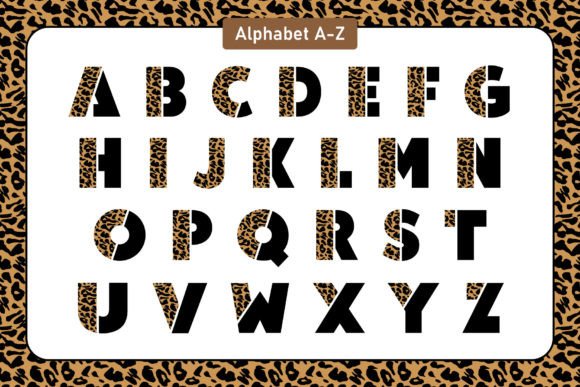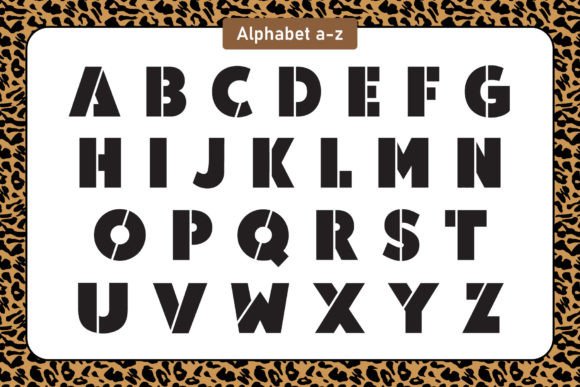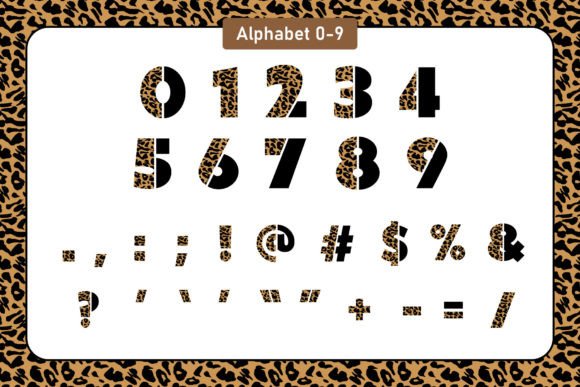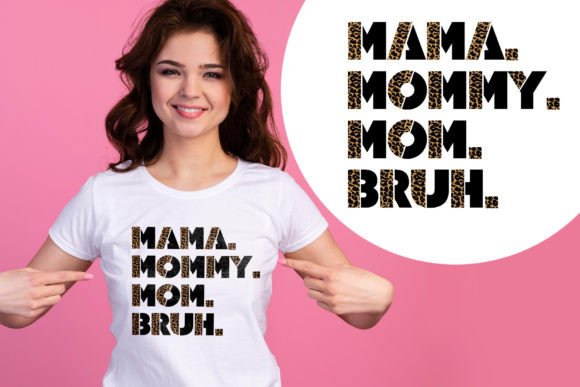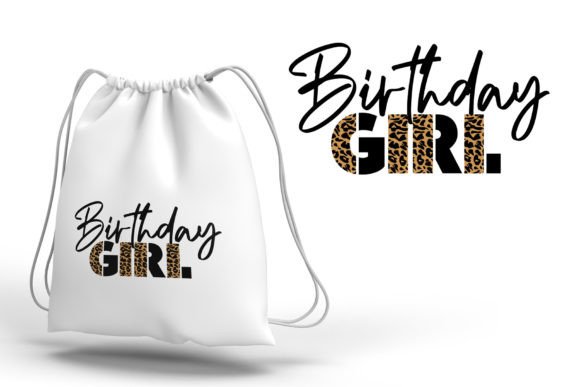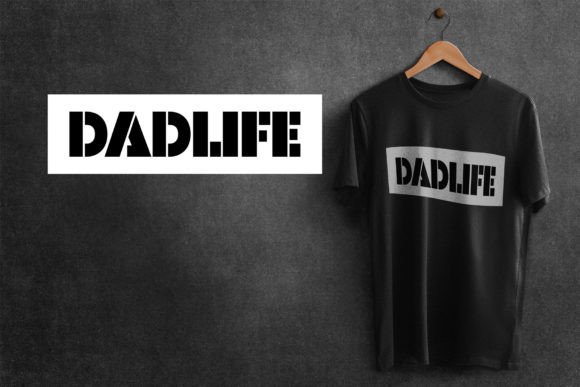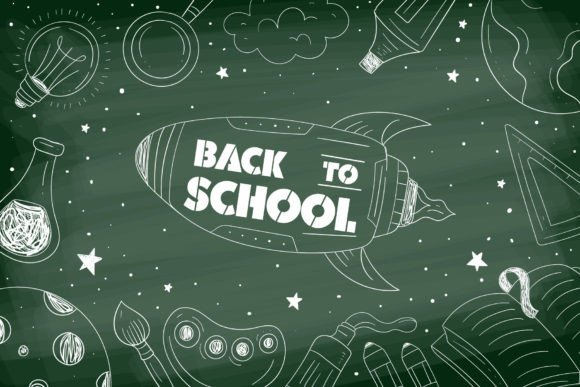
Half Cheetah Font
Introducing Half Cheetah, a vibrant and playful color font that brings a unique and energetic touch to your designs. With its captivating style, Half Cheetah is the perfect choice for a variety of creative projects, ranging from t-shirts and tote bags to stickers, wedding designs, logos, cards, quotes, and much more.
Designed with attention to detail, Half Cheetah exudes a sense of fun and adventure. Its decorative elements and lively colors make it a standout choice for those who want to make a bold statement with their designs. Whether you’re aiming for a wild and untamed aesthetic or a touch of exotic charm, Half Cheetah will add that extra flair to your creative ideas.
The versatility of Half Cheetah allows it to adapt to various design contexts. Whether you’re creating merchandise for your brand, personalized gifts, or eye-catching promotional materials, Half Cheetah will help you stand out from the crowd. Its distinct character and vibrant colors will capture attention and leave a lasting impression on your audience.
Let your imagination run wild as you explore the possibilities of Half Cheetah. Mix and match colors, experiment with different layouts, and bring your creative ideas to life with this dynamic and expressive font. Whether you’re designing for personal projects, small businesses, or larger-scale ventures, Half Cheetah will elevate your designs and make them truly unforgettable.
So, add a touch of fun and vibrancy to your designs with Half Cheetah. Let this font become your go-to choice for creating standout visuals that leave a lasting impression. Embrace the creativity and energy that Half Cheetah brings to your projects and watch as your ideas come to life in the most captivating way.